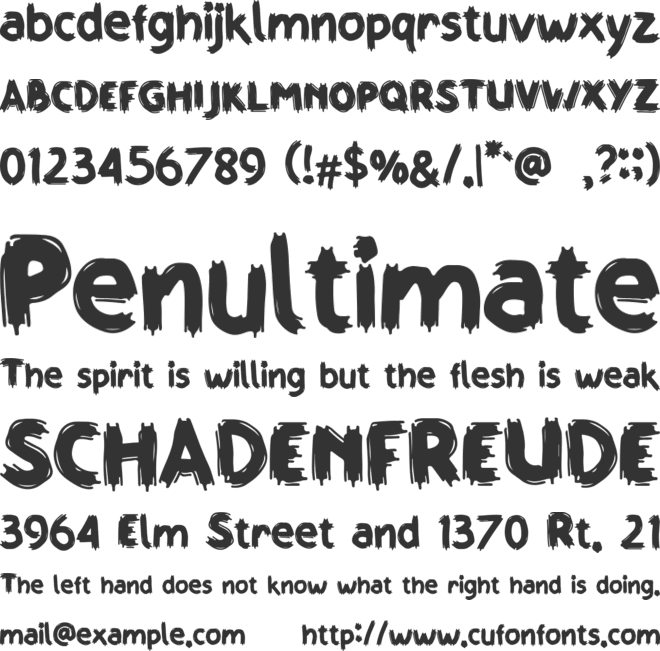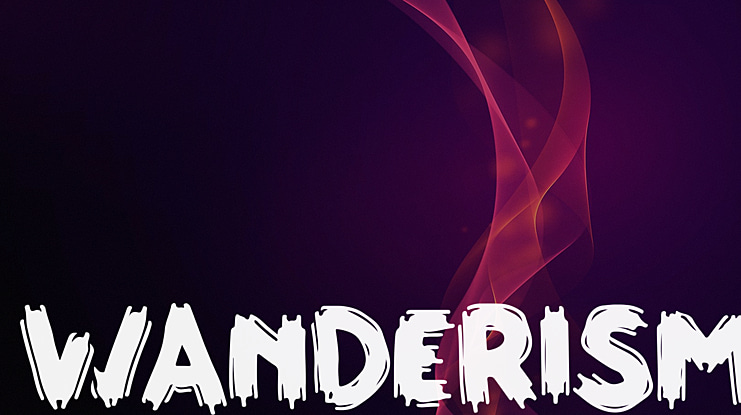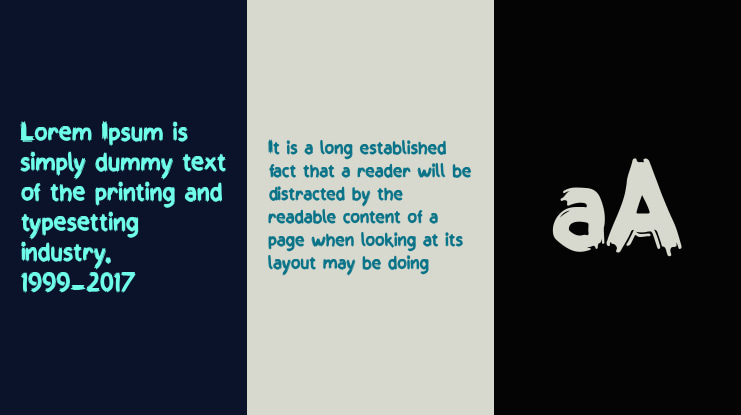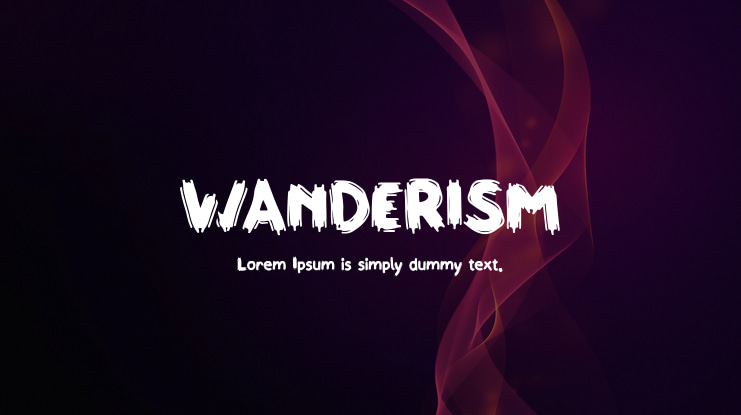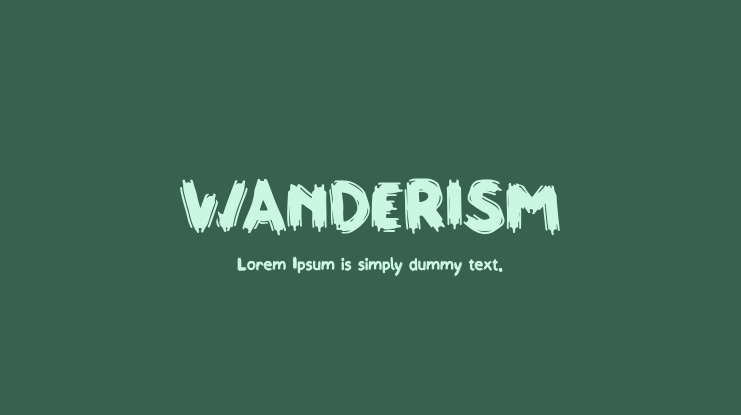
WANDERISM Font
Wanderism is a trendy brush typeface that heavily influenced by neo-graffiti art style. If you need a bold and fresh touch on your design projects, then Wanderism is the right font for you!
Wanderism Font best uses for poster, logo, cover, logotype, events design, social media posts, branding, advertisements and many more. Let’s wandering with Wanderism! Note: By installing or using this font, you are agree to the Product Usage Agreement: